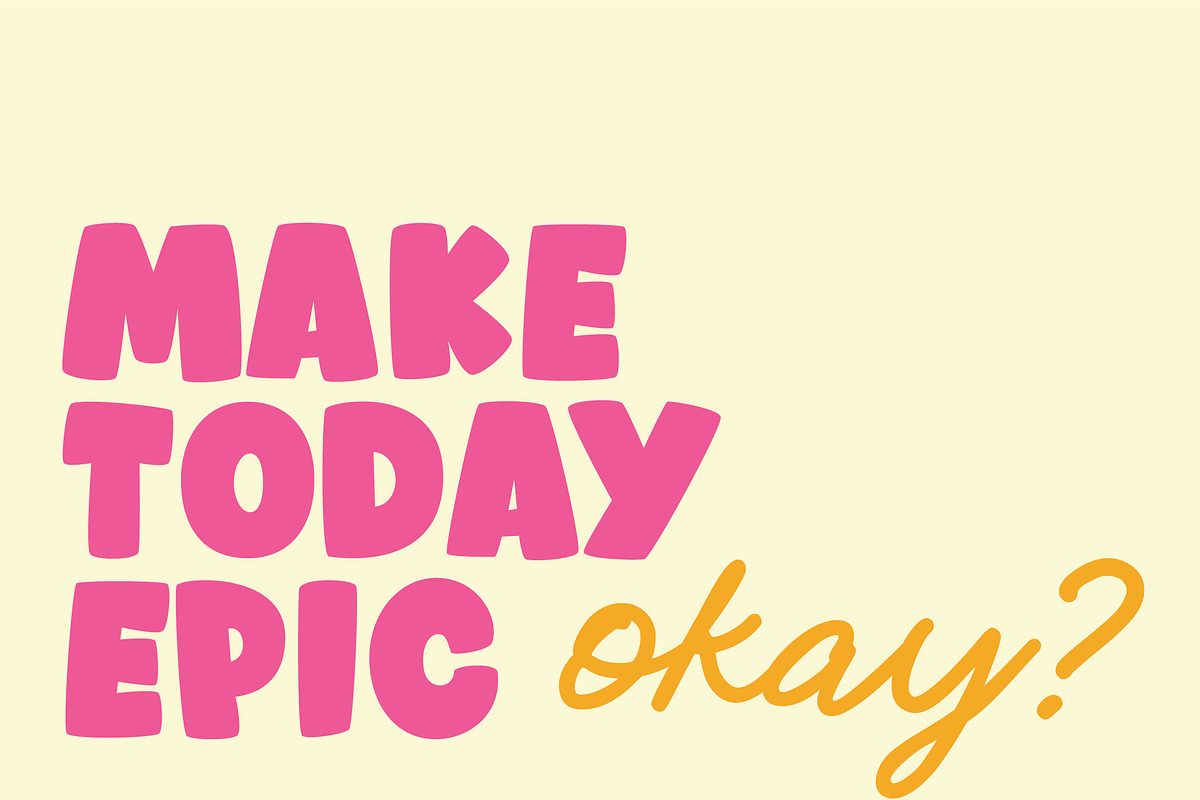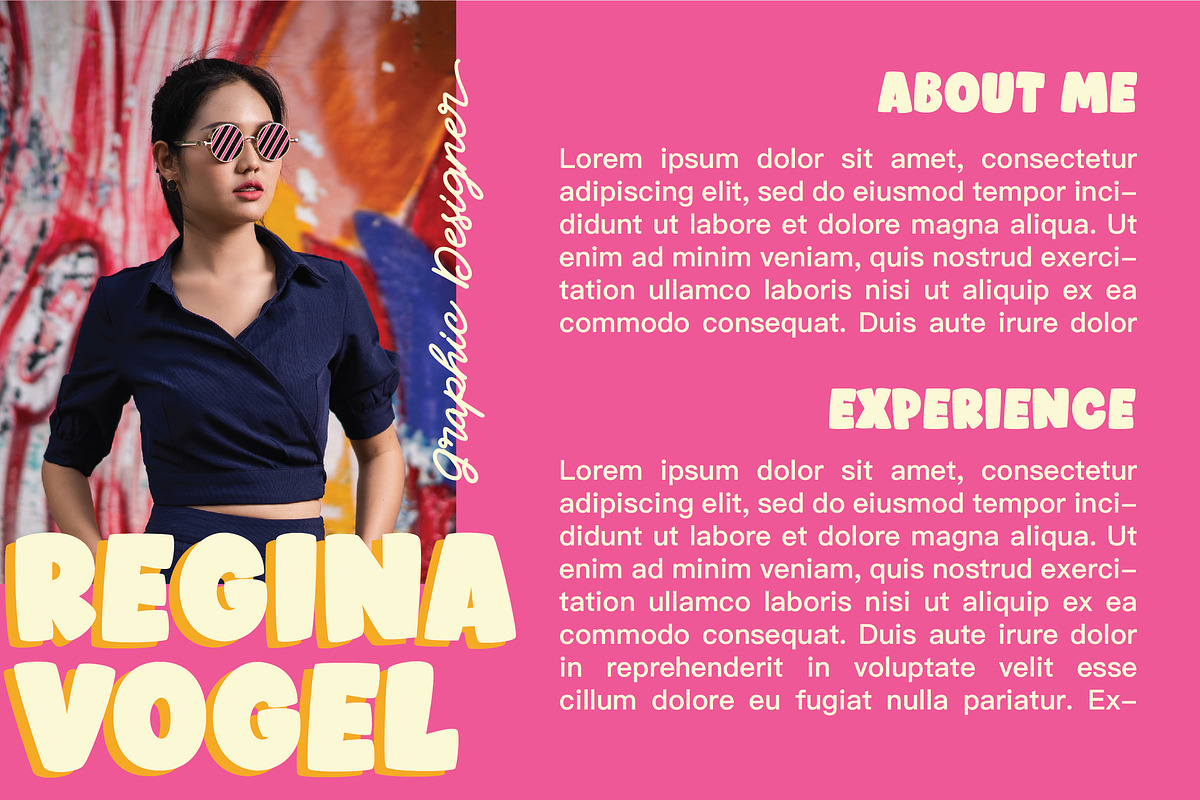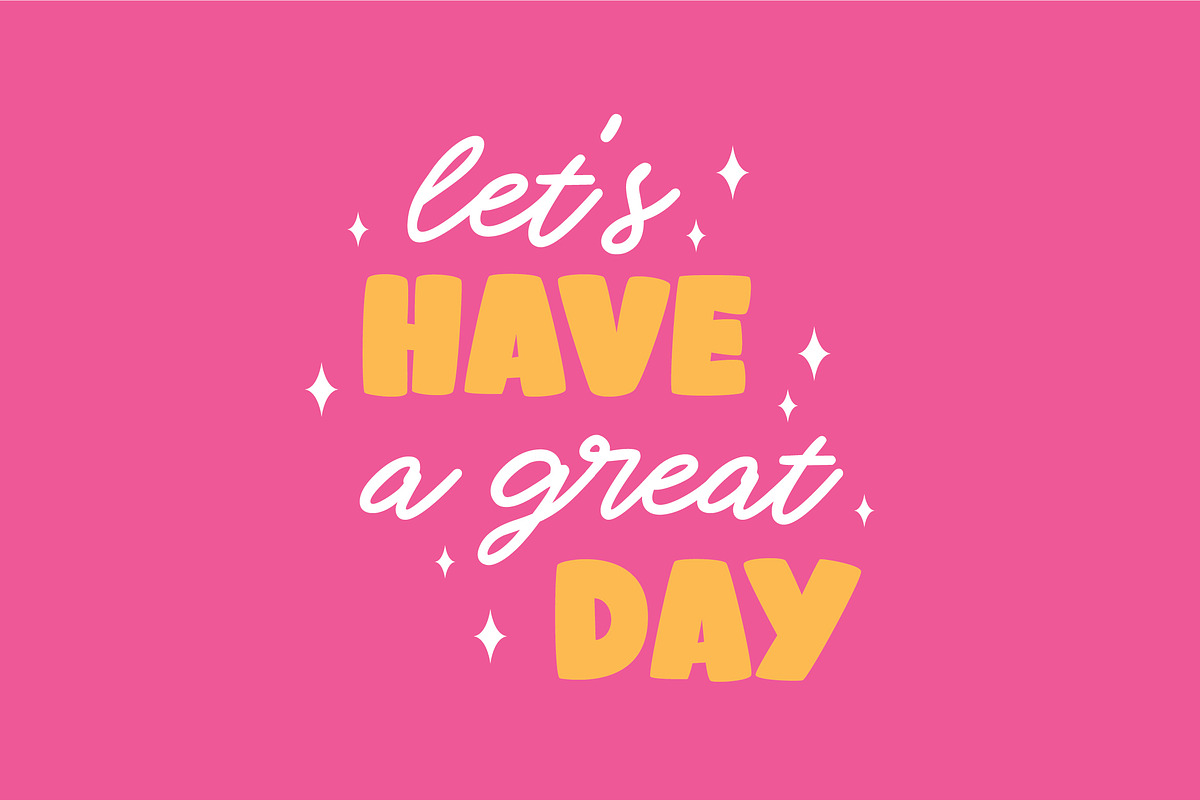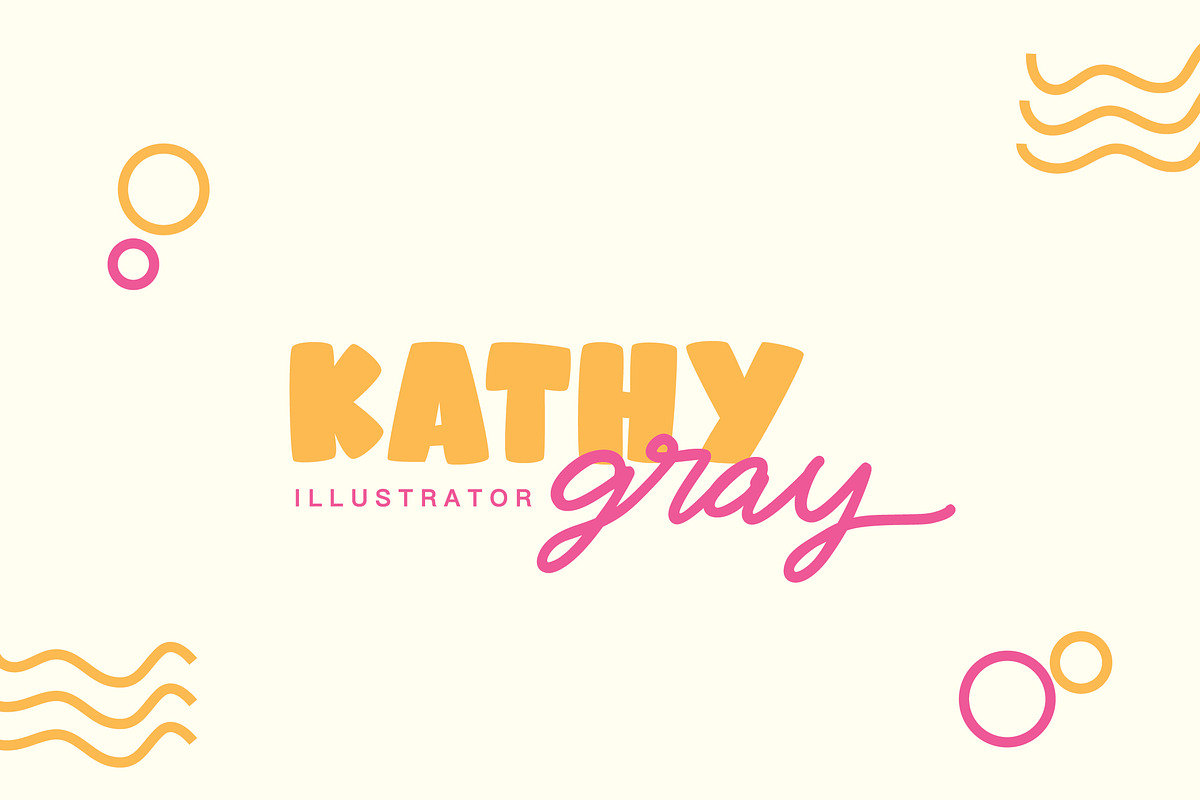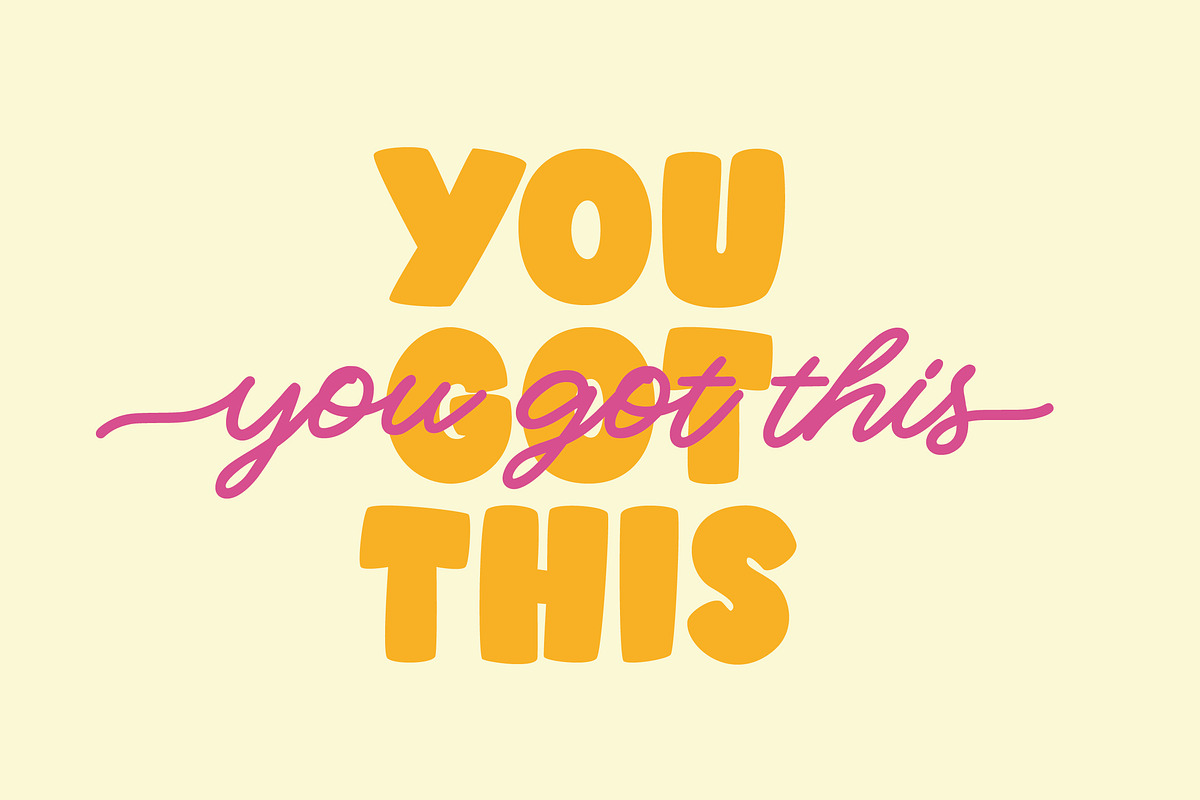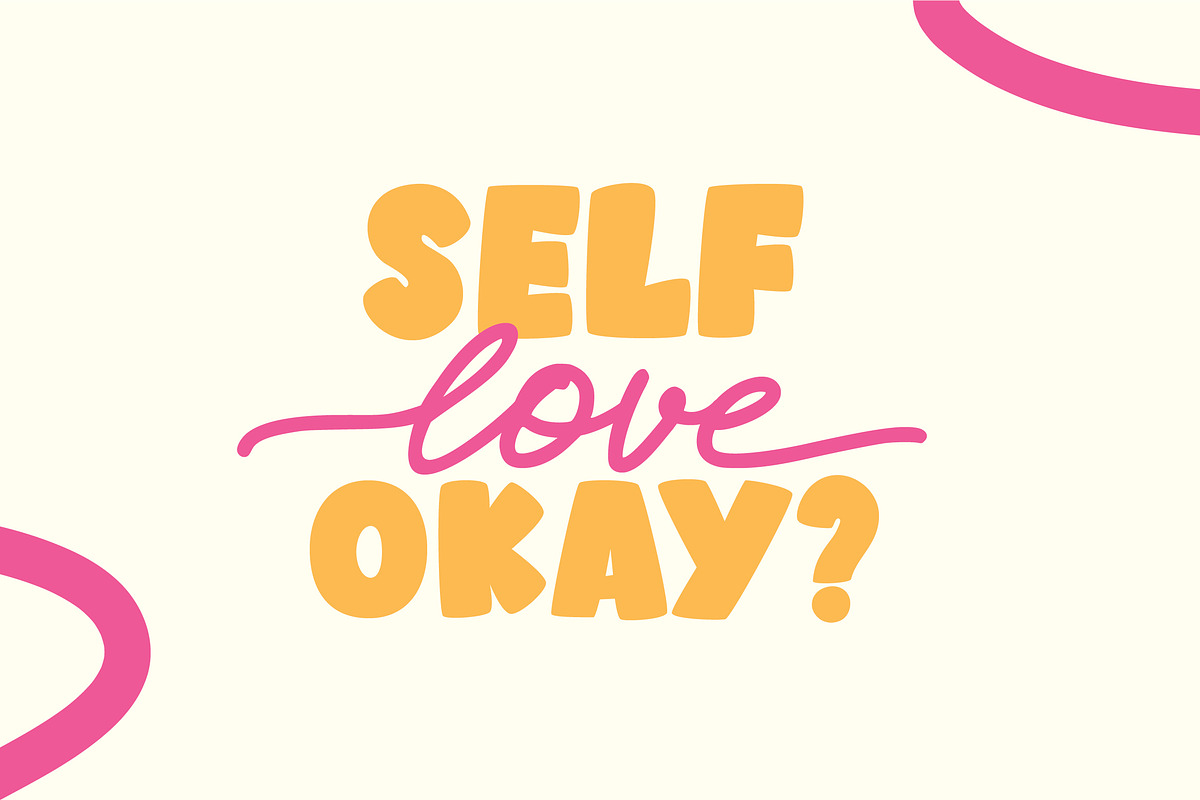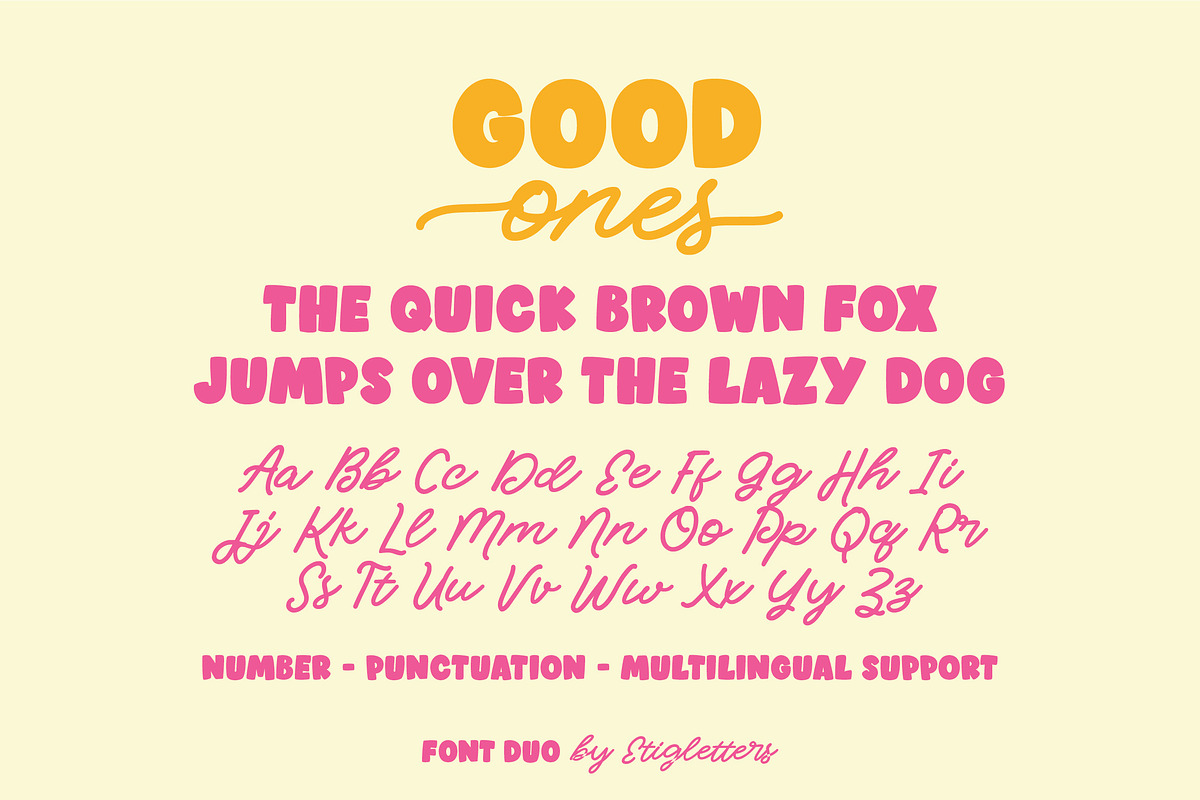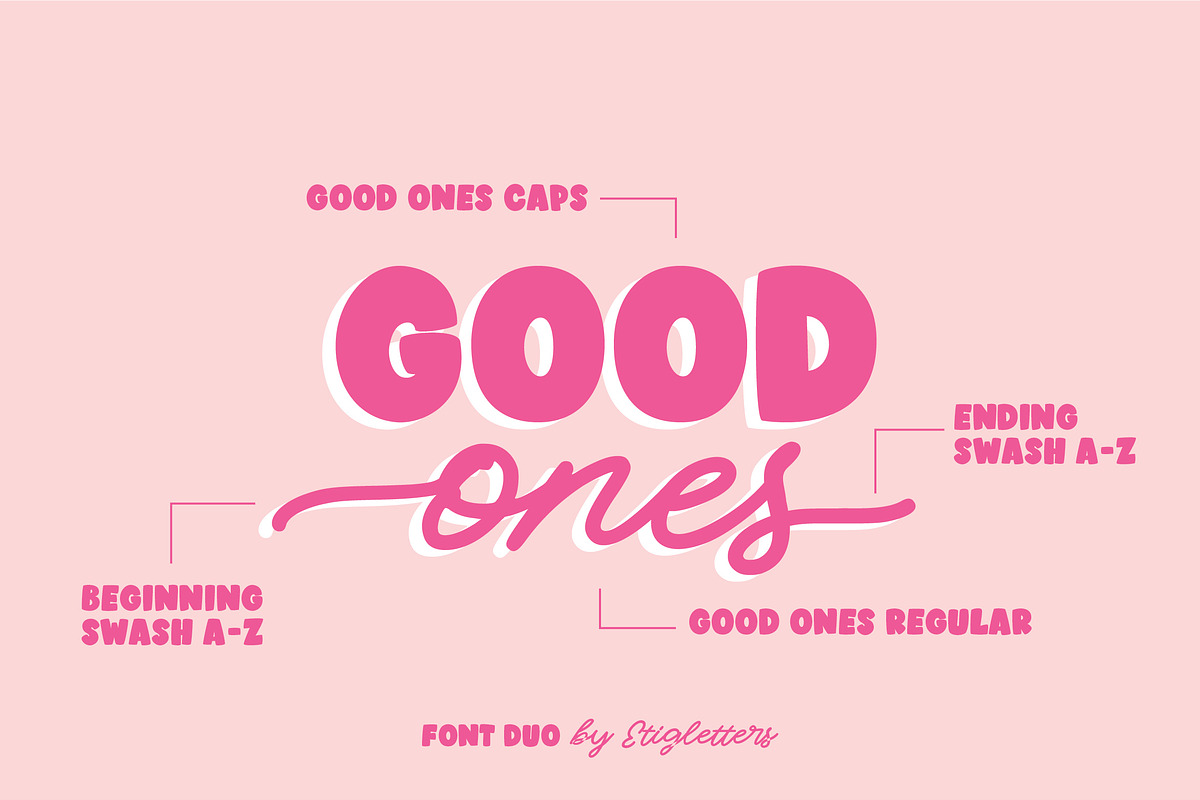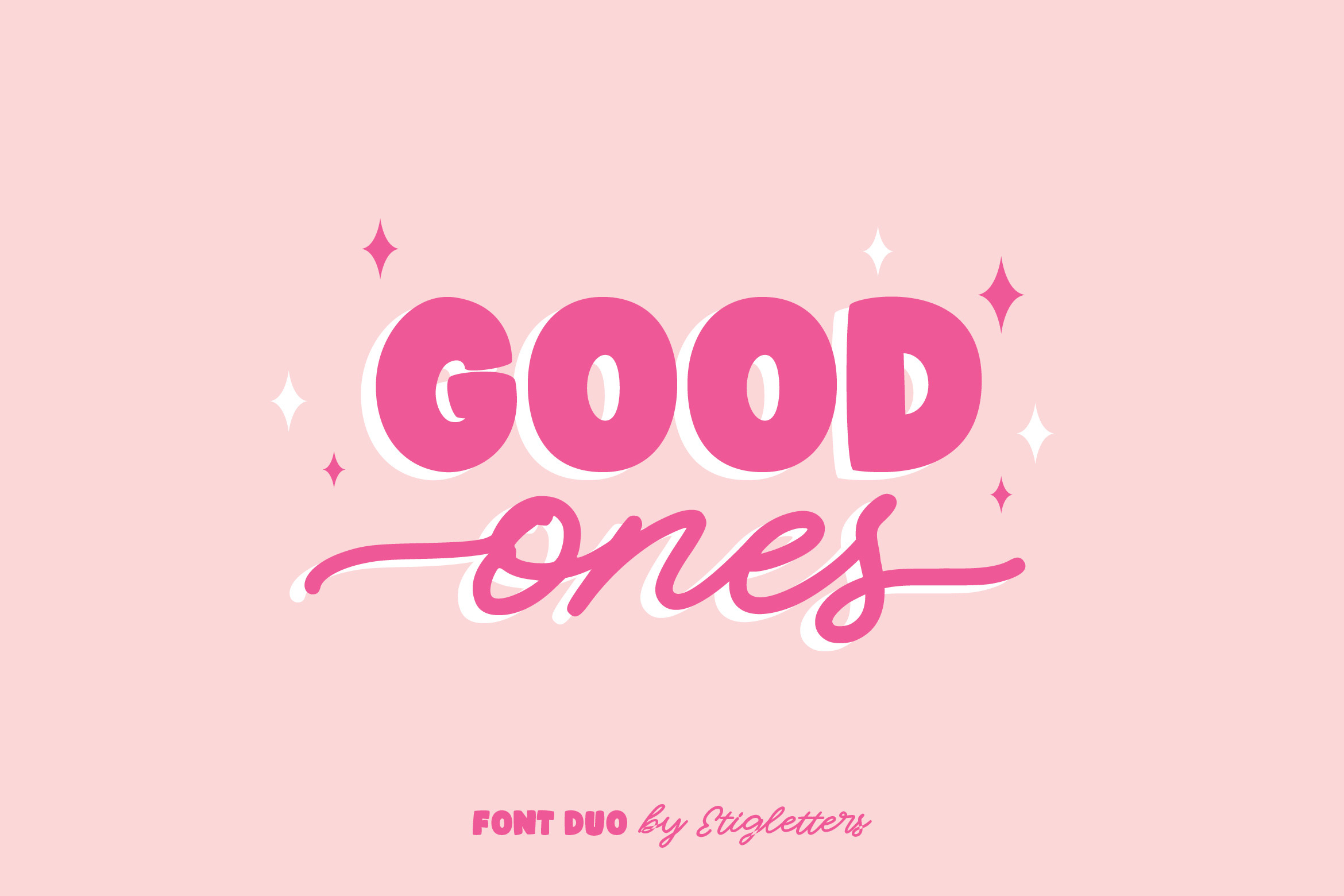
Good Ones Font Duo
Introducing, Good Ones - a handwritten combo pairing with playful sans. Good Ones will be perfect for stickers, greeting cards, logos, posters or anything that requires a fun and happiness look!
This font also suitable to be combined with sans serif that will make your design more perfect. Also already PUA Encoded!